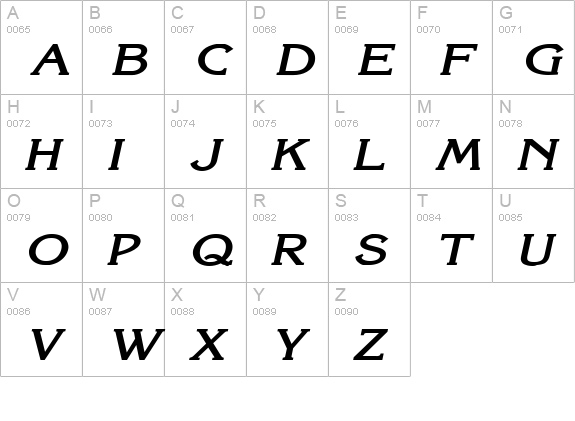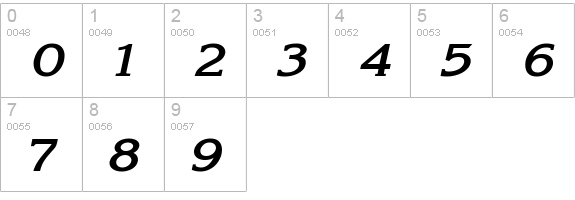
Keira Wide Bold Italic Font Details
Keira Wide Bold Italic is a strong, high-contrast, extended-width, italic variant in the Keira typeface family \xE2\x80\x94 well suited to headlines, attention-grabbing titles, and strong calls-to-action.
Introducing Keira Wide Bold Italic, a stunning font that effortlessly combines boldness and elegance. With its wide and confident letterforms, this typography exudes a strong presence, making it perfect for attention-grabbing headlines, impactful titles, and striking designs. Keira Wide Bold Italic is designed with a touch of italics, adding a subtle twist to its already commanding appearance. The slanted letterforms create a sense of movement and dynamism, making this font ideal for conveying energy and enthusiasm in your projects. But what truly sets Keira Wide Bold Italic apart is its availability. Yes, you read that right – this exceptional font is free! Now, you can elevate your designs without worrying about breaking the bank. Simply head over to FontsMarket.com, where you can download this font for free and start using it in your personal and commercial projects today. Whether you're working on branding materials, posters, invitations, or any other creative endeavor, Keira Wide Bold Italic will be your trusty companion. Its versatility allows it to adapt to various design styles, bringing a touch of sophistication and modernity to any composition. So, don't miss out on this opportunity to enhance your designs with a font that effortlessly balances boldness and elegance. Take advantage of the freely available Keira Wide Bold Italic at FontsMarket.com and let your creativity soar to new heights.